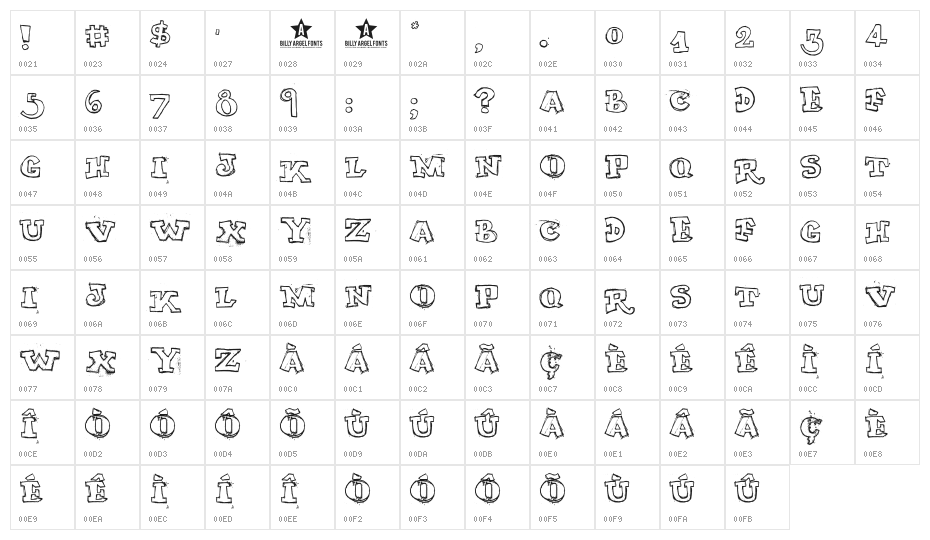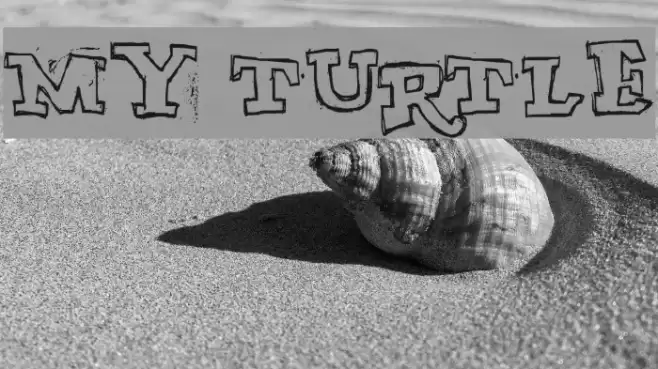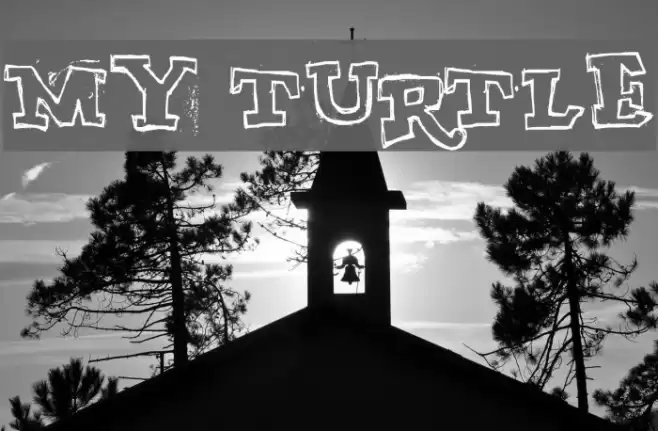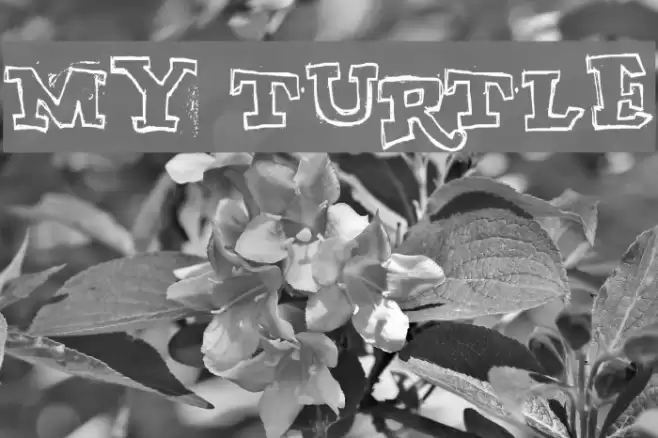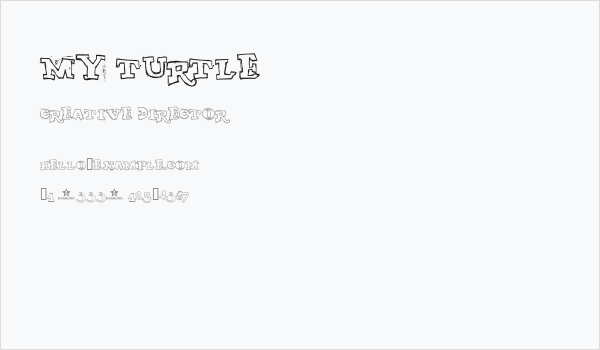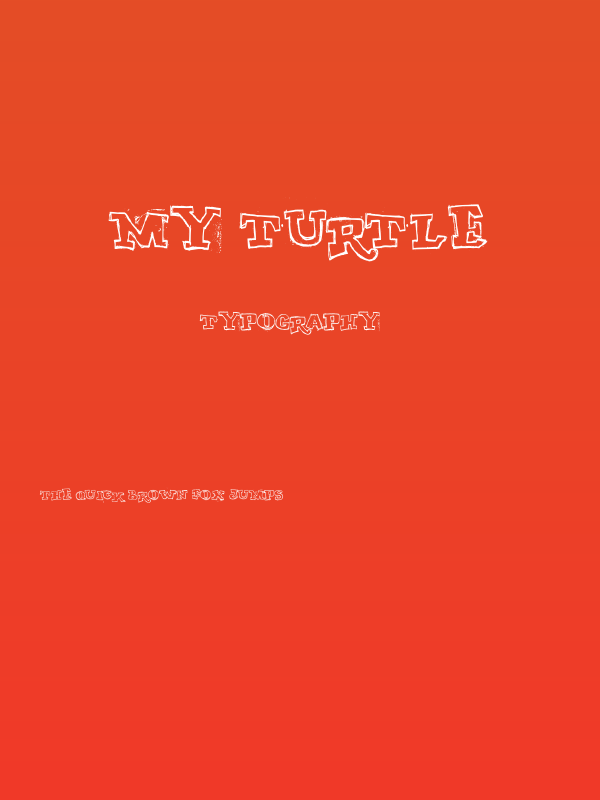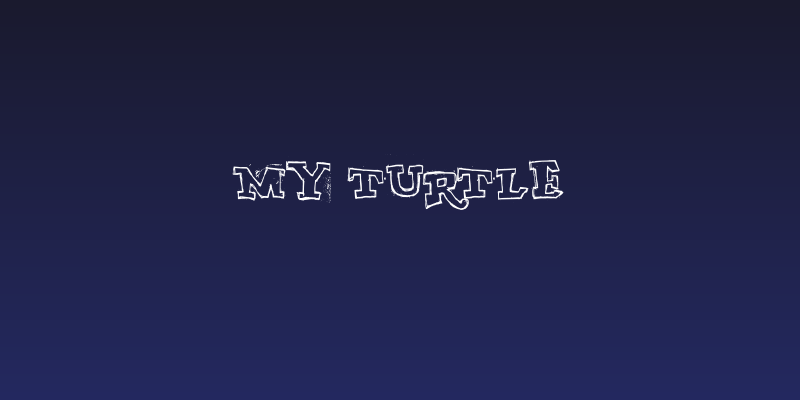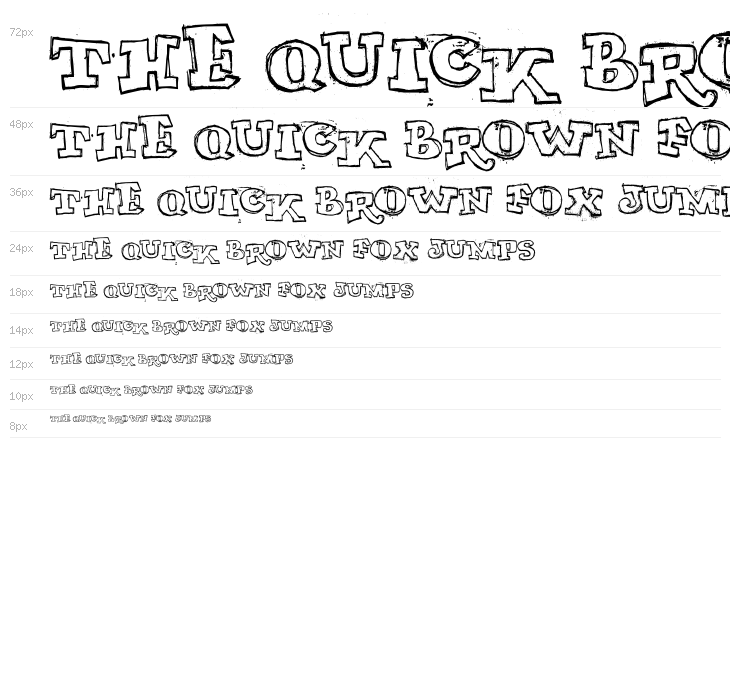
MY TURTLE Font
MY TURTLE Description
This font features a playful and bold design with a hand-drawn aesthetic. The letters are outlined with a slightly rough texture, giving them a casual and artistic feel. Each character has a unique, quirky shape that adds personality and charm. The uppercase and lowercase letters maintain a consistent style, while the numbers and special characters complement the overall look. This font is perfect for projects that require a fun and informal touch, such as children's books, posters, or creative branding.
Overall StylePlayful, Artistic
Proposed ProjectsIdeal for children's books, playful posters, creative branding, and informal invitations.